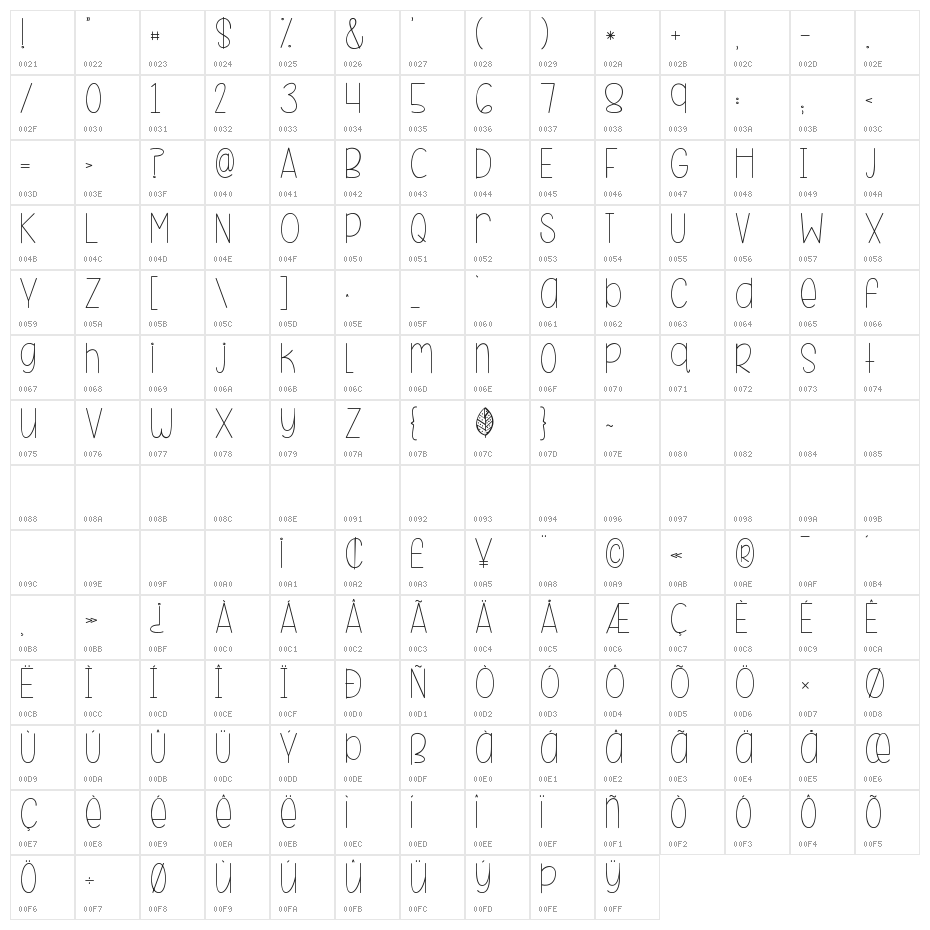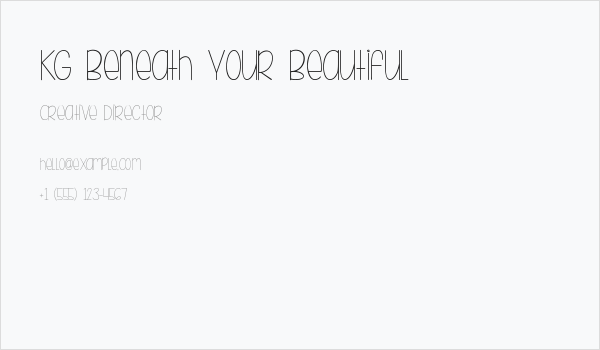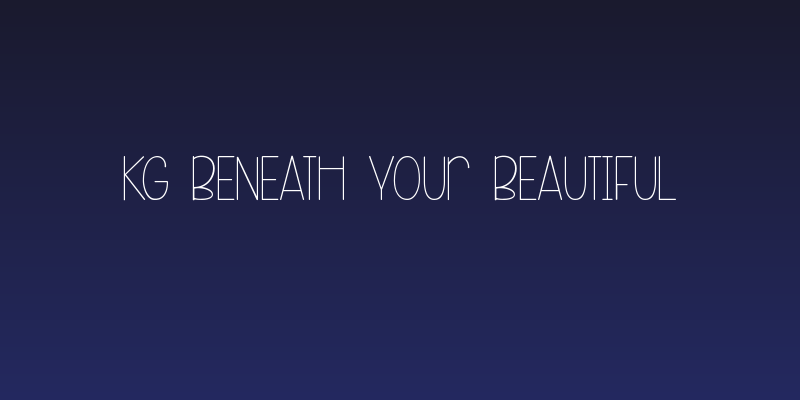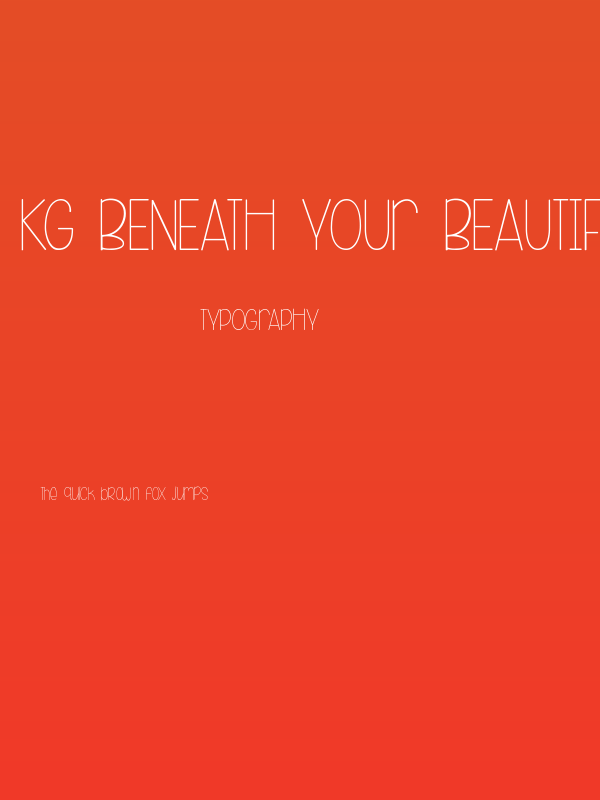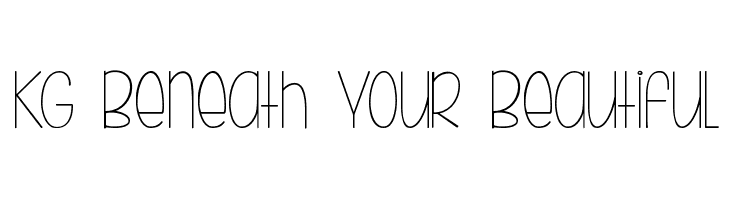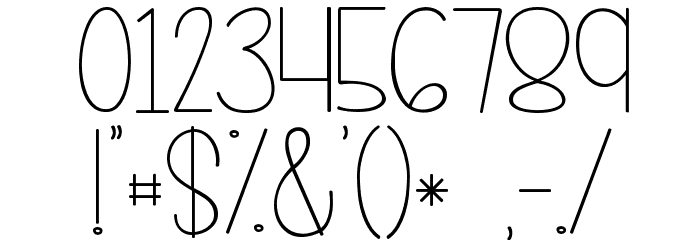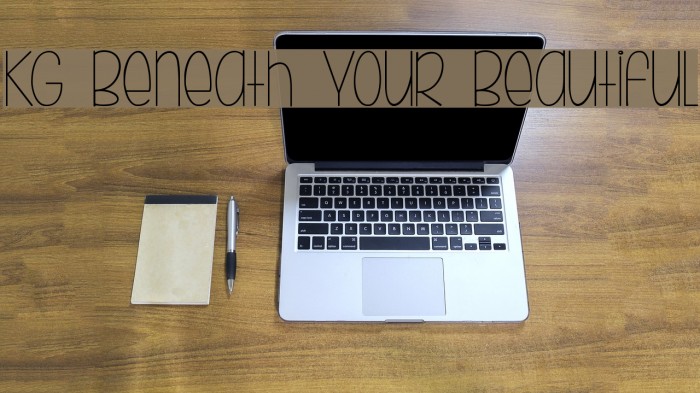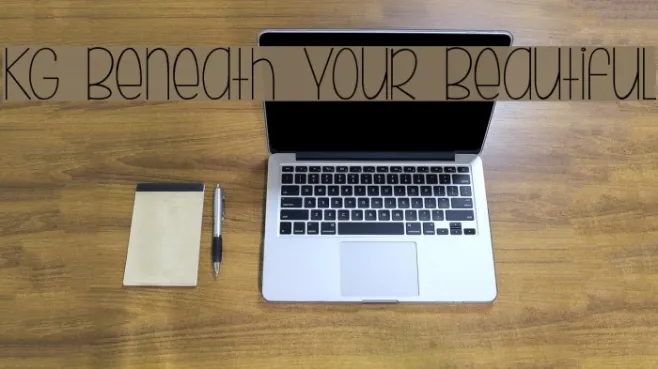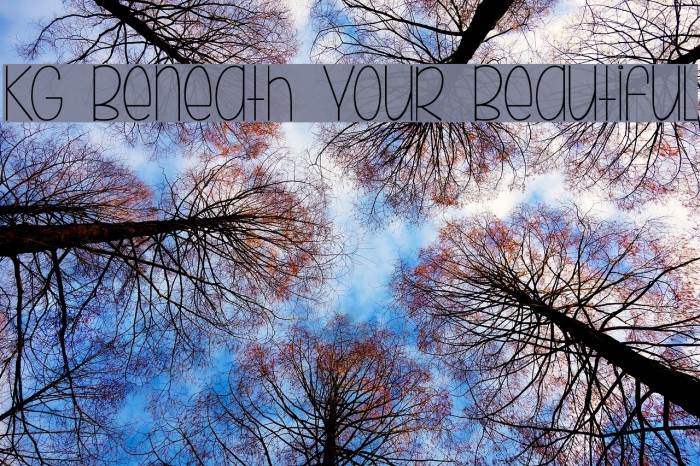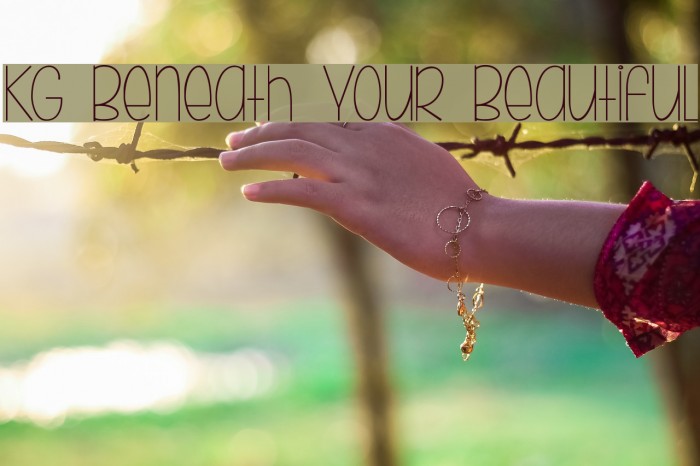
KG Beneath Your Beautiful Font
KG Beneath Your Beautiful Description
This font features a playful and whimsical design with tall, narrow characters that have a hand-drawn feel. The strokes are consistent in width, giving it a monoline appearance. The letters are slightly rounded at the edges, adding a friendly and approachable vibe. The uppercase and lowercase letters are distinct, with the lowercase letters having a more pronounced loop and curve, especially in characters like 'g' and 'y'. The numbers maintain the same playful style, ensuring consistency across all characters. Special characters are integrated seamlessly, maintaining the overall aesthetic. This font is ideal for projects that require a touch of creativity and informality.
| Width | Condensed |
| Overall Style | Playful |
| Proposed Projects | Great for children's books, greeting cards, playful branding, and creative posters. |